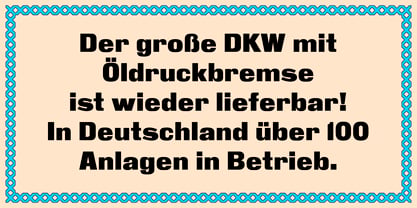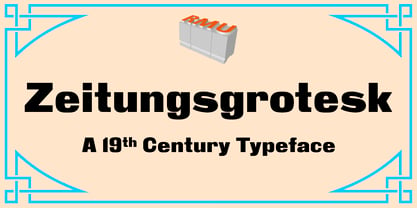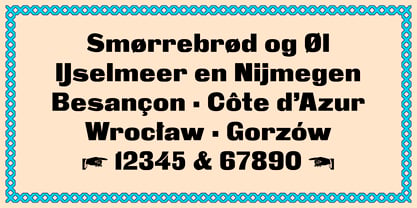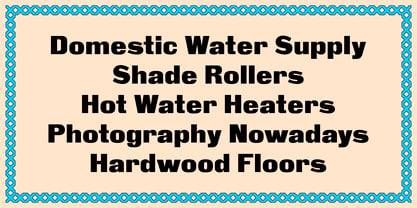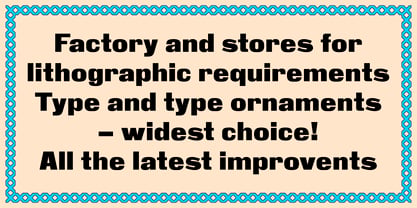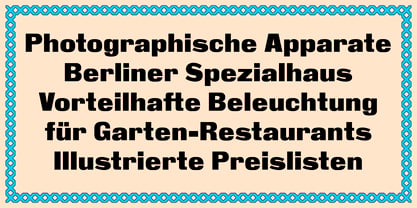
Zeitungsgrotesk™
La familia tipográfica Zeitungsgrotesk fue diseñada por Ralph M. Unger y publicada por RMU. Zeitungsgrotesk contiene 1 estilos. Más información sobre esta familia
Zeitungsgrotesk was a widely used headline font in Germany in the 19th century and later on. Now I redraw and redesigned this remarkable font for modern use. This font comes with the old-style numero sign as well as with the discretionary ligatures IJ, ij, degree Celsius, and degree Fahrenheit.